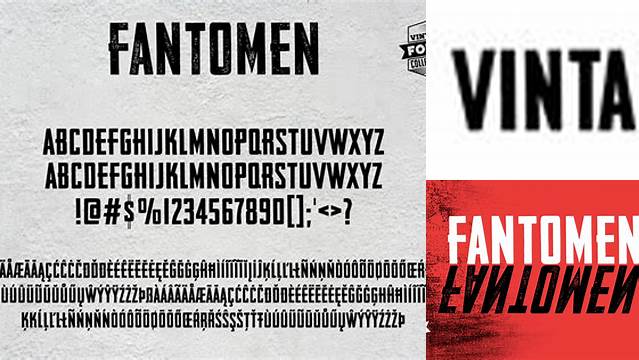
Free VFC Fantomen Font: A Vintage Fonts Collection
Hey guys! Are you on the hunt for that perfect vintage font to give your designs a unique, retro vibe? Look no further! We're diving deep into the world of the VFC Fantomen font, a standout in the vintage fonts collection. Whether you're a seasoned designer or just starting out, this font is a fantastic addition to your toolkit. Let's explore what makes it so special and how you can snag it for free.
What is VFC Fantomen Font?
VFC Fantomen is more than just a font; it's a statement. This font, part of a broader vintage fonts collection, is designed to evoke a sense of nostalgia and timelessness. It’s characterized by its unique letterforms, which often feature subtle imperfections and stylistic flourishes that mimic the look of old printing techniques. Imagine the kind of fonts you'd see on vintage posters, classic book covers, or even old-school packaging – that’s the kind of aesthetic VFC Fantomen brings to the table. Using VFC Fantomen allows designers to tap into a rich vein of visual history, giving their work an authentic and compelling edge. Its versatility makes it suitable for a variety of projects, from branding to editorial design, making it a valuable asset in any designer’s arsenal.
History of Vintage Fonts
The history of vintage fonts is a fascinating journey through time, reflecting the evolution of typography and design. Vintage fonts, like the VFC Fantomen, draw inspiration from various eras, including the Victorian, Art Deco, and Mid-Century Modern periods. Each of these periods contributed unique characteristics to the world of typography. For instance, Victorian fonts often feature elaborate serifs and ornate details, while Art Deco fonts are known for their geometric shapes and streamlined forms. Understanding this history is crucial for designers looking to authentically recreate a vintage aesthetic. By studying the origins and evolution of these fonts, designers can better appreciate the nuances and subtleties that make them so distinctive. This knowledge also allows for more informed choices when selecting and using vintage fonts, ensuring that the final design accurately reflects the intended period and style. The resurgence of vintage fonts in contemporary design is a testament to their enduring appeal and timeless quality. They continue to inspire and influence designers, offering a unique way to connect with the past while creating something new.
Key Features of VFC Fantomen
The key features of VFC Fantomen set it apart from other fonts in its category. This font, a gem in any vintage fonts collection, boasts several distinctive characteristics that make it a favorite among designers. Firstly, its letterforms are carefully crafted to mimic the look of vintage printing, complete with slight imperfections and unique stylistic flourishes. These details add authenticity and character to the font, making it feel genuinely retro. Secondly, VFC Fantomen often includes a variety of ligatures and alternate characters, providing designers with additional options for customization and creativity. These features allow for a more nuanced and expressive use of the font, enabling designers to achieve a truly unique look. Thirdly, the font's overall design is versatile enough to be used in a wide range of projects, from branding and advertising to editorial and web design. Whether you're creating a vintage-inspired logo or designing a retro-themed website, VFC Fantomen can deliver the desired aesthetic with ease. Finally, the font is often available in multiple weights and styles, further enhancing its versatility and usability. This combination of unique features makes VFC Fantomen a standout choice for designers looking to add a touch of vintage charm to their work.
Using VFC Fantomen in Graphic Design
Using VFC Fantomen in graphic design can elevate your projects, giving them a distinctive and timeless appeal. As part of the vintage fonts collection, VFC Fantomen brings a unique aesthetic that can enhance various design applications. When incorporating this font into your work, consider the overall theme and message you want to convey. VFC Fantomen is particularly well-suited for projects that aim to evoke nostalgia, authenticity, or a sense of history. It works exceptionally well in branding for businesses with a vintage or artisanal feel, such as coffee shops, breweries, or handcrafted goods. In editorial design, VFC Fantomen can add character and visual interest to magazine layouts, book covers, and posters. Its distinctive letterforms make it an excellent choice for headlines and display text, drawing the reader's eye and setting the tone for the piece. When using VFC Fantomen, pay attention to the font's readability and legibility, especially in smaller sizes. Adjust the kerning and tracking as needed to ensure the text remains clear and easy to read. Experiment with different weights and styles of the font to find the perfect balance for your design. Combine VFC Fantomen with other fonts that complement its vintage aesthetic, such as classic serifs or clean sans-serifs. By carefully considering these factors, you can effectively leverage VFC Fantomen to create visually stunning and impactful designs.
VFC Fantomen Font Alternatives
If VFC Fantomen isn't quite the right fit for your project, there are plenty of excellent font alternatives within the realm of vintage fonts. Exploring these options can help you find the perfect typeface to match your design aesthetic. One popular alternative is Bebas Neue, a clean and modern sans-serif font that pairs well with vintage fonts. Its simplicity and versatility make it a great choice for balancing out the more ornate details of fonts like VFC Fantomen. Another option is Playfair Display, a classic serif font with elegant letterforms and a sophisticated feel. It works well for headlines and display text, adding a touch of refinement to any design. For a more rustic and hand-drawn aesthetic, consider fonts like Amatic SC or Permanent Marker. These fonts have a unique charm and character that can enhance vintage-inspired designs. When choosing a font alternative, consider the overall style and tone of your project. Think about the specific characteristics you like about VFC Fantomen and look for fonts that share those qualities. Experiment with different combinations of fonts to see what works best for your design. Don't be afraid to try new things and push the boundaries of your creativity. With a little exploration, you can find the perfect font alternative to complement your vintage-inspired designs.
Designing a Logo with Vintage Fonts
Designing a logo with vintage fonts like VFC Fantomen can create a timeless and memorable brand identity. Vintage fonts evoke a sense of nostalgia, authenticity, and craftsmanship, making them an excellent choice for businesses that want to convey a classic or artisanal feel. When designing a logo with vintage fonts, consider the overall message and values of your brand. Choose a font that reflects your brand's personality and target audience. VFC Fantomen, with its unique letterforms and vintage charm, is well-suited for businesses with a retro or handcrafted aesthetic. In addition to the font, pay attention to the other elements of your logo, such as colors, symbols, and layout. Choose colors that complement the vintage font and enhance the overall design. Use symbols or icons that are relevant to your brand and add visual interest to the logo. Experiment with different layouts to find the perfect balance and composition. Keep the logo simple and memorable, ensuring it is easily recognizable and scalable. Test the logo in various sizes and formats to ensure it looks good in both print and digital media. By carefully considering these factors, you can create a logo with vintage fonts that effectively communicates your brand's identity and resonates with your target audience.
Creating Posters with VFC Fantomen
Creating posters with VFC Fantomen can result in eye-catching designs that capture attention and evoke a sense of nostalgia. Vintage fonts are perfect for posters that aim to promote events, products, or services with a retro or classic theme. When designing a poster with VFC Fantomen, start by defining the message and target audience. Choose a font size and style that is appropriate for the poster's content and target audience. Use VFC Fantomen for headlines and display text to draw attention and set the tone for the poster. Complement VFC Fantomen with other fonts that enhance its vintage aesthetic, such as classic serifs or clean sans-serifs. Pay attention to the overall layout and composition of the poster. Use a grid system to create a balanced and visually appealing design. Incorporate images, illustrations, or graphic elements that complement the vintage font and enhance the poster's message. Choose colors that are consistent with the retro theme and create a cohesive look. Use high-quality images and graphics to ensure the poster looks professional and polished. Test the poster design in different sizes and formats to ensure it looks good in both print and digital media. By following these guidelines, you can create posters with VFC Fantomen that effectively communicate your message and capture the attention of your target audience.